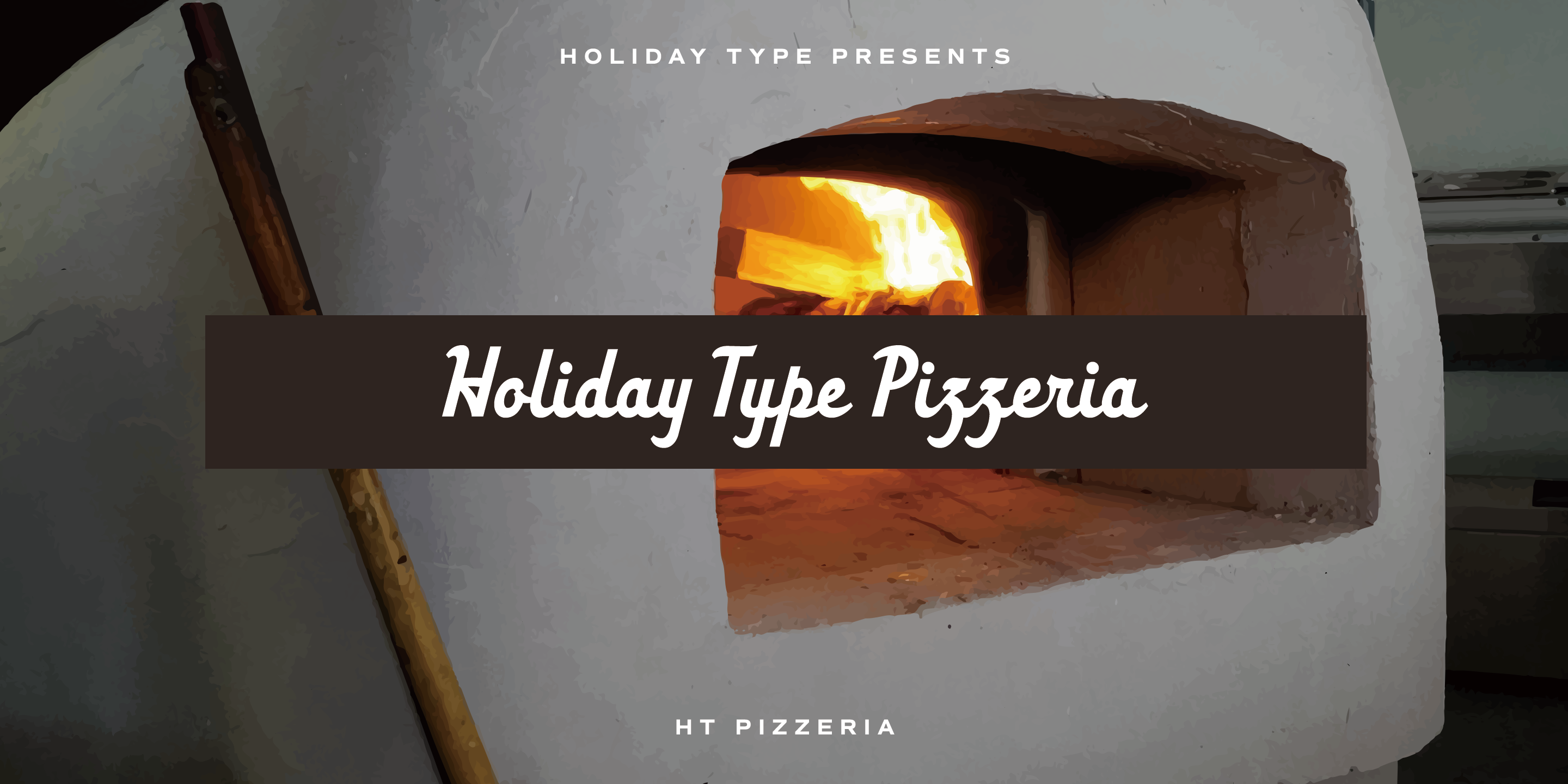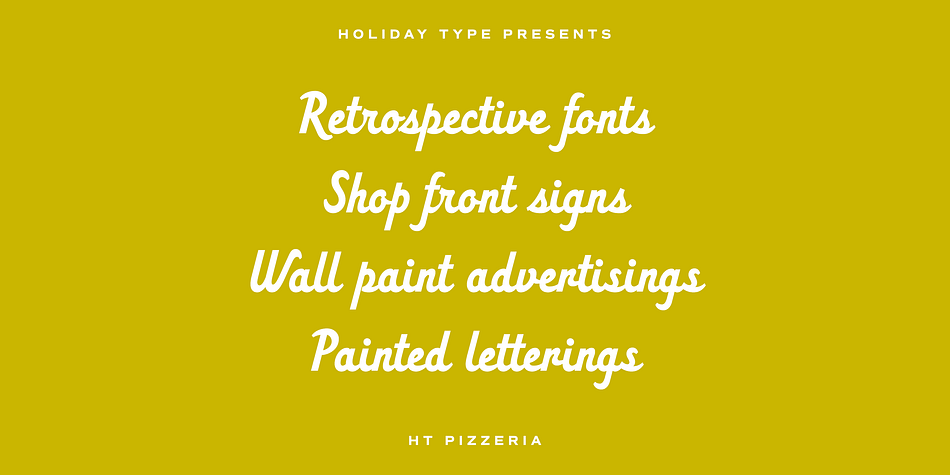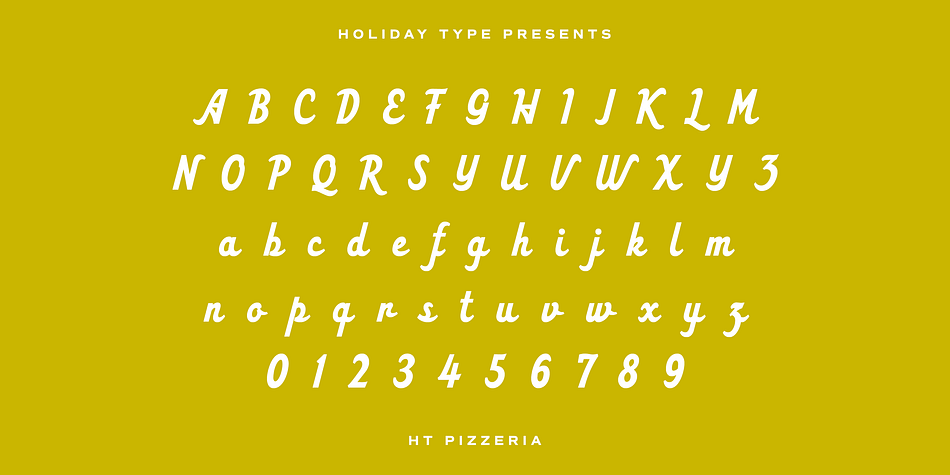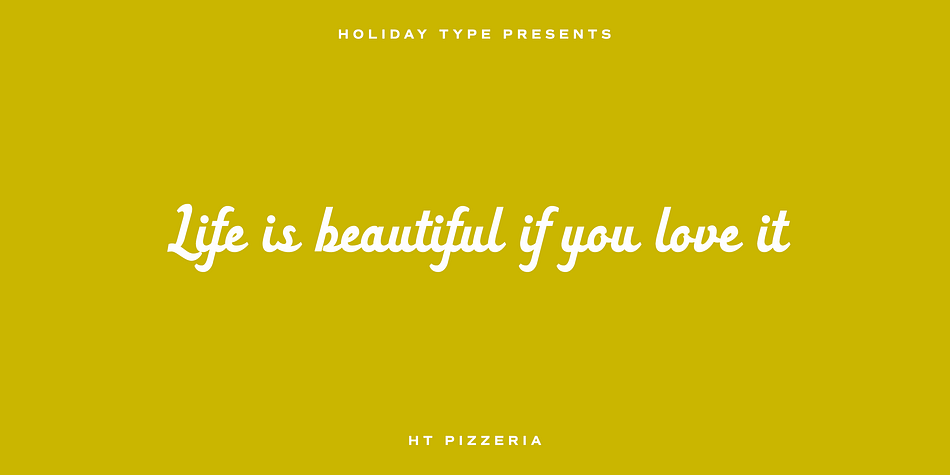
HT Pizzeria is a brush script font published by Dharma Type.
Ht Pizzeria is strong looking script for eye-catching part.
Holiday Type(HT) Project offers retro hand drawing scripts. Inspired by retro script on shopfront lettering, wall paint advertisements in Italy around 1950s.